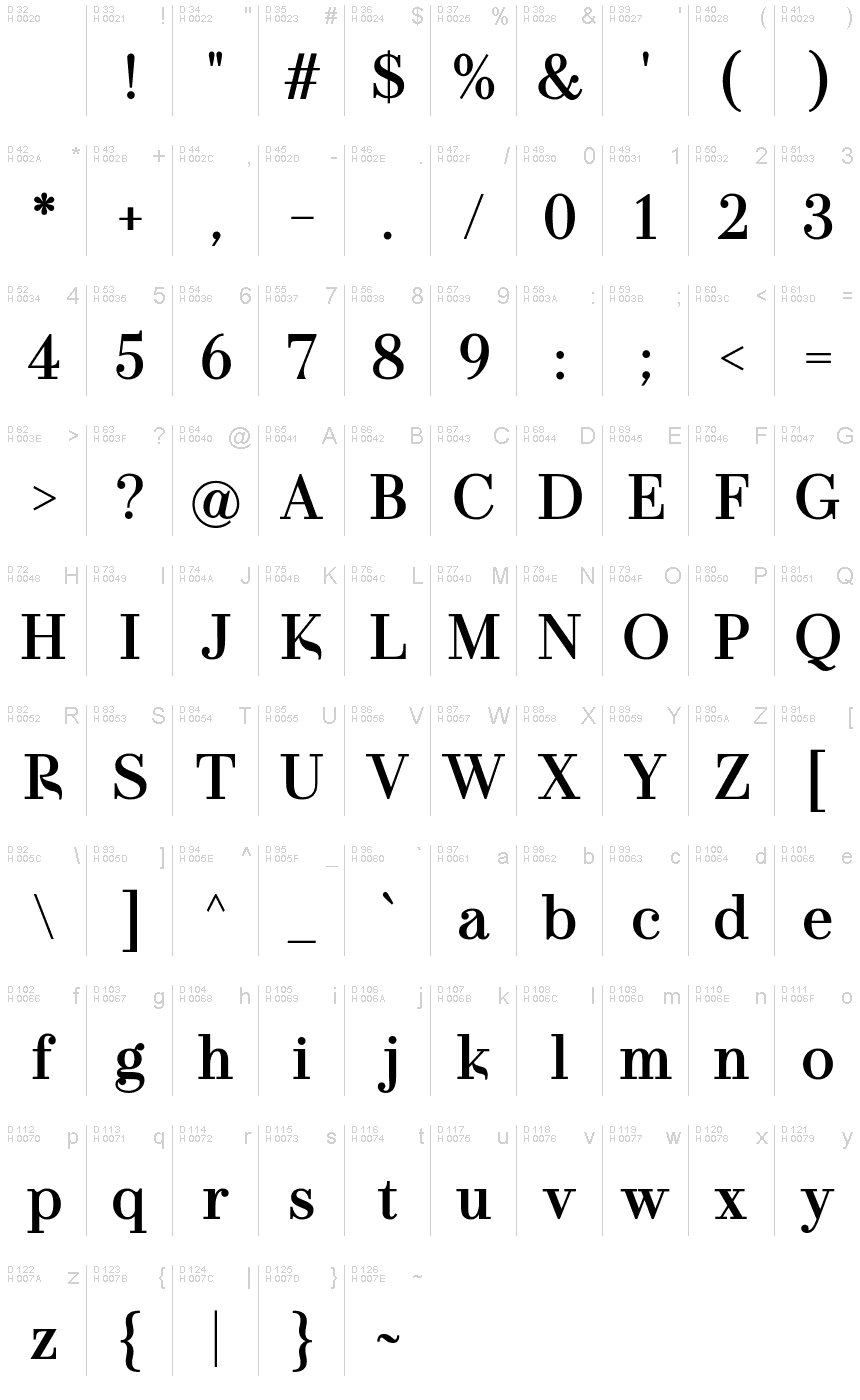
Star Blush Serif Bold
Star Blush Serif Bold, a creation by VampStudio, emerges as a distinctive typeface within the Star Blush Serif family. Its semi-bold weight adds a touch of gravitas, perfectly balancing elegance with readability. The serif style of this font exudes a classic charm while maintaining modern sensibilities, making it an excellent choice for both print and digital media.
The robust yet refined structure of Star Blush Serif Bold offers an aesthetic appeal that commands attention without overwhelming the senses. With its sophisticated curves and serifs, this typeface lends itself to a wide array of creative projects. From branding and advertising to editorial design, Star Blush Serif Bold stands out as an adaptable font that can elevate any composition with its stylish presence.
Its suitability extends beyond mere beauty; the clarity in each character's form ensures legibility at various sizes, which is essential for comprehensive design solutions. Whether you're crafting bold headlines or seeking an accent font for body text that needs to make an impact, Star Blush Serif Bold is poised to deliver with both style and substance.